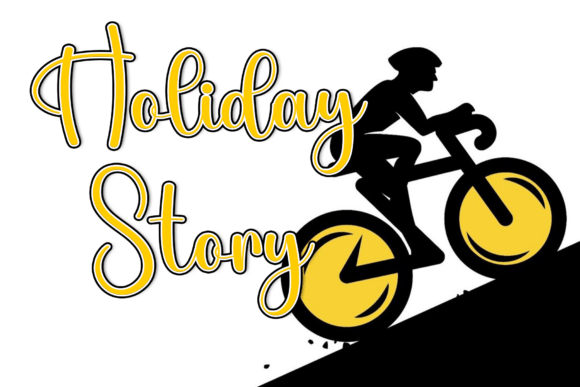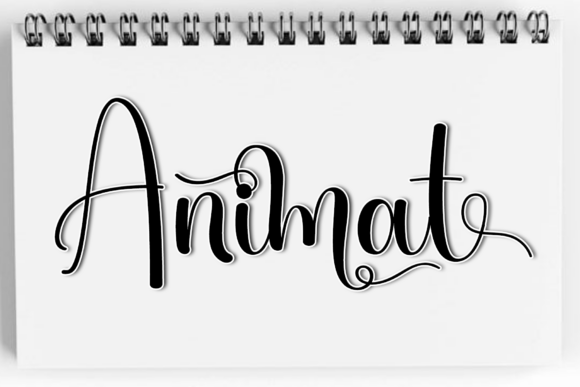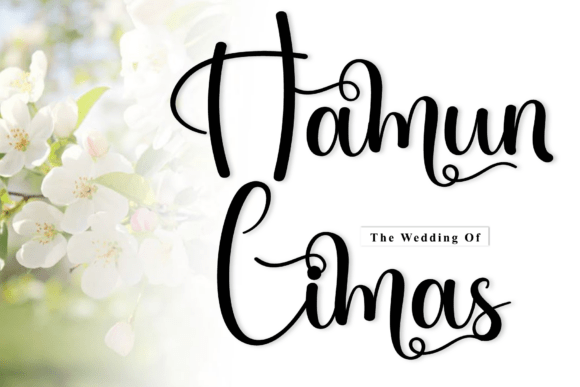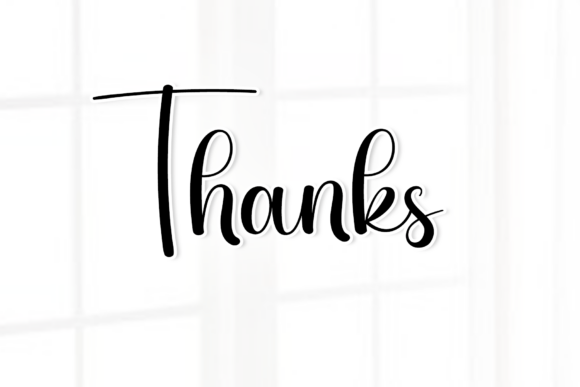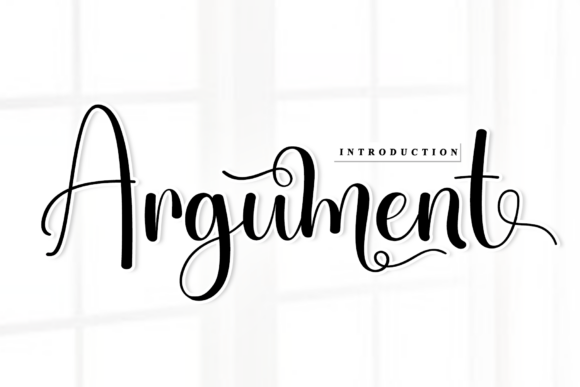
The Argument Font: A Timeless Choice for Creative Designs
I’ll never forget the time I was working on a logo design project for a client who wanted a font that was both elegant and playful. I had spent hours scouring the internet for the perfect font, but nothing seemed to fit the bill. That was until I stumbled upon the Argument font. It was love at first sight! 💕 The unique, handwritten style and beautiful touches on every letter made my design come alive. In this article, I’ll share with you why I’m obsessed with the Argument font and how you can use it to take your designs to the next level.
So, what do I love about the Argument font? Here are a few things that make it stand out:
• ✨ Unique and beautiful handwritten style
• ✅ Perfect for creating eye-catching logos, branding, and quotes
• 💫 Every letter has a special touch, making it perfect for designs that need a personal touch
• 🤔 Some letters may appear a bit inconsistent in terms of size and spacing, which can make it tricky to use in certain designs
• ⚠️ The font may not be suitable for body text or long paragraphs, as it can be a bit too ornate
The Story Behind Argument Font
The Argument font was designed by a talented type designer who wanted to create a font that was both timeless and elegant. Inspired by classic handwritten scripts, the designer carefully crafted each letter to have a unique and beautiful touch. The result is a font that’s perfect for designs that need a personal touch.
Font Name Argument Font
Author Sansana
What is the Argument font best used for? The Argument font is perfect for creating eye-catching logos, branding, and quotes.
Is the Argument font suitable for body text? No, the Argument font is best used for headlines and short paragraphs, as it can be a bit too ornate for body text.
Is the Argument font available in different styles? Yes, the Argument font comes in several styles, including regular, italic, and bold.